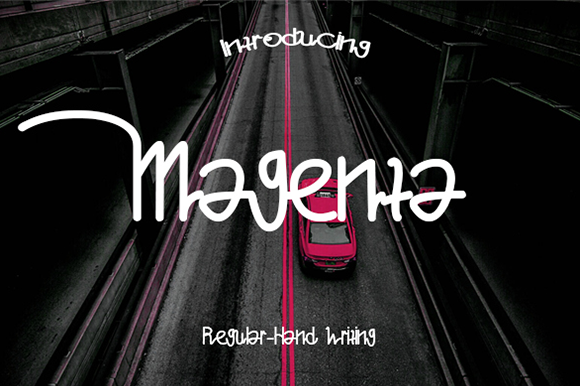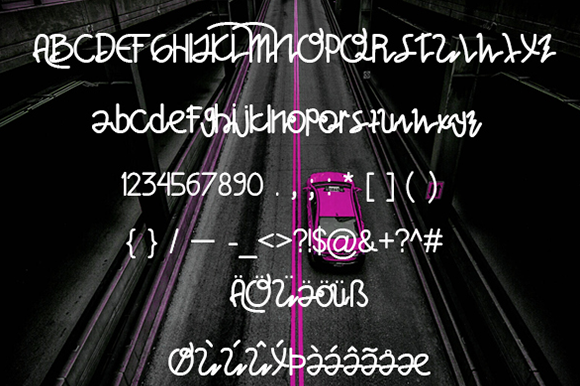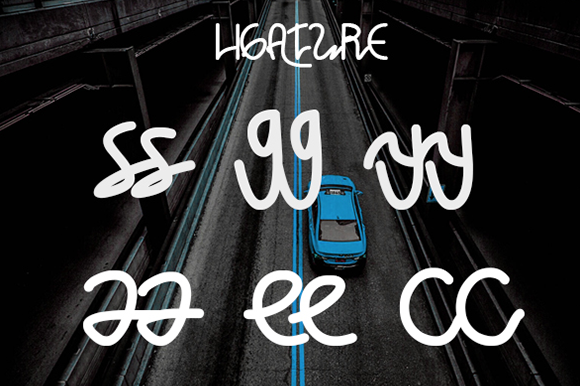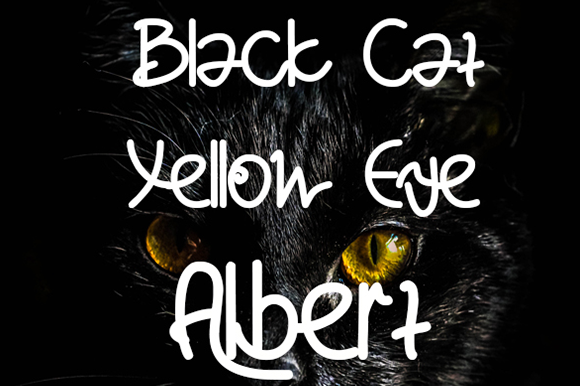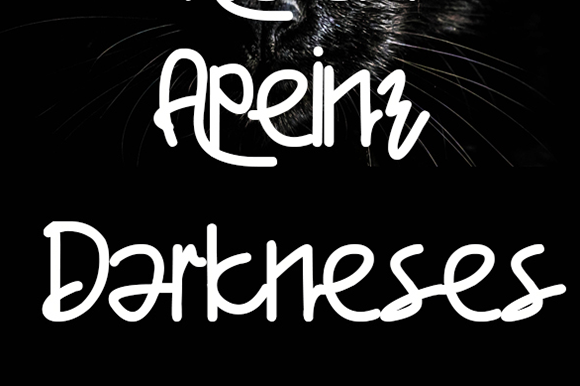
Magenta Font
About Magenta Font
Magenta is a sweet and friendly handwritten font. Its natural and unique style makes it incredibly fitting to a large pool of designs.